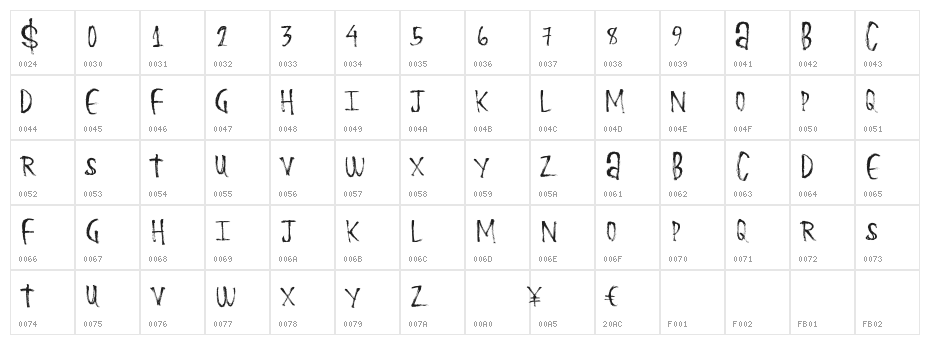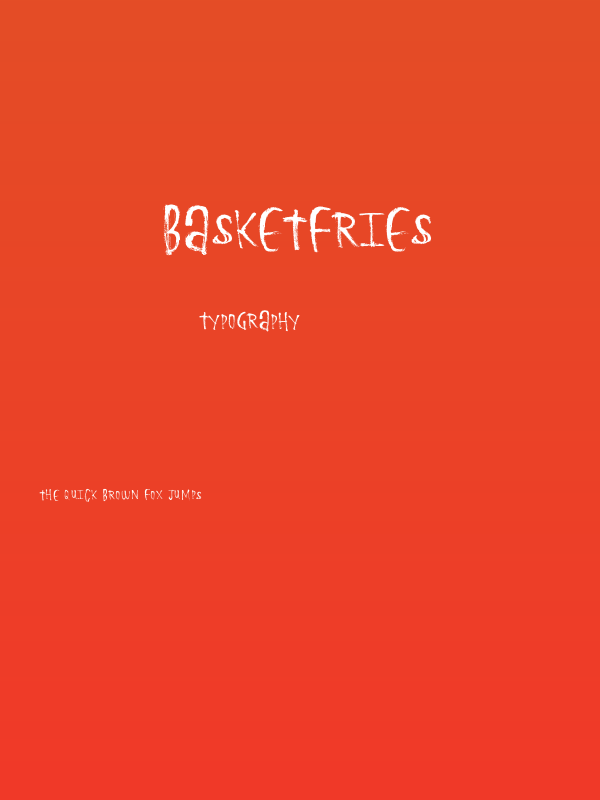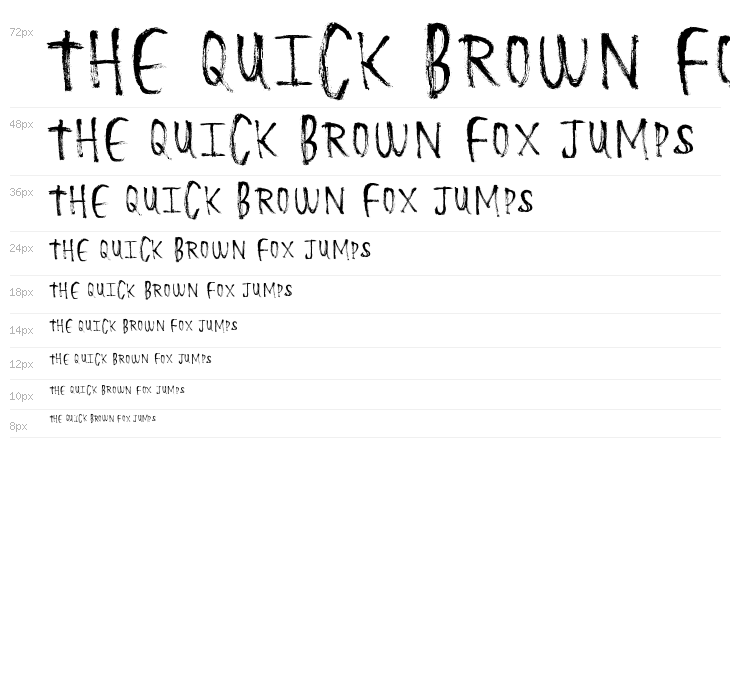
BasketFries Font
BasketFries Description
This font features a bold and expressive style with a hand-drawn appearance. The characters are uneven and have a textured, brush-like quality, giving them a dynamic and artistic feel. The uppercase and lowercase letters maintain a consistent style, with slight variations that add to the handcrafted look. The numbers and special characters follow the same aesthetic, ensuring a cohesive appearance across all glyphs. The font's irregular strokes and rough edges contribute to its unique and eye-catching design, making it suitable for creative and informal projects.
| Proposed Projects | Ideal for artistic projects, posters, branding, and any design requiring a creative and informal touch. |